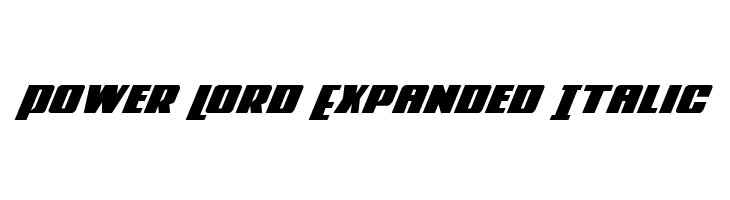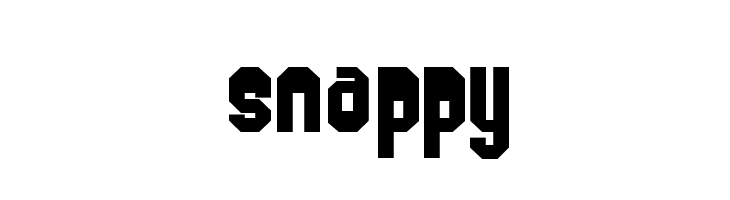
A playful, hand-drawn font with bold, rounded strokes and a casual vibe.
A classic serif font with bold strokes and elegant serifs.
A lively and dynamic script font with fluid, cursive strokes.
A bold, ornate blackletter font with a medieval, gothic style.
An elegant, decorative script font with outlined, swirling characters.
A dynamic, cursive script font with elegant, flowing strokes.
A bold, outlined font with a retro, three-dimensional look.
An elegant script font with fluid, connected strokes and a handwritten feel.
A flowing, cursive script with elegant, handwritten characteristics.
A geometric, minimalist font with thin lines and angular shapes, ideal for modern designs.
A flowing, elegant script font with interconnected letterforms and decorative flourishes.
Festive, bold display font with Santa-themed decorations.
A bold, angular, and futuristic font with an italic slant, perfect for modern and edgy designs.
A bold, elegant script font with fluid, cursive strokes.
A bold, expressive brush script font with dynamic strokes and a hand-painted look.
An elegant and flowing script font with graceful curves and fluid strokes.
A bold, angular font with a futuristic and geometric design.
A bold, rounded font with a modern and impactful style.
A lively, flowing script font with elegant, connected letters and a natural handwriting style.
A dynamic, handwritten font with sharp, angular strokes and fluid connections.
A playful handwritten font with a casual and friendly style.
A bold, dynamic handwritten font with energetic brush strokes.
A modern, tall, and narrow font with uniform stroke width and geometric design.
A bold, geometric font with hexagonal enclosures, offering a modern and futuristic look.
A modern engraved font with a diagonal line pattern and cursive lowercase letters.
A bold, geometric font with angular shapes and a futuristic look.
A modern, playful outline font with rounded, consistent strokes.
A bold, expressive handwritten font with fluid, dynamic strokes.
A bold, geometric font with a distinctive inline design.
A chaotic, splatter-like decorative font with irregular, dynamic forms.
A playful, casual handwritten font with rounded, smooth letterforms.
An elegant script font with flowing, interconnected letters and a classic calligraphic style.
An elegant script font with flowing, interconnected letters and calligraphic style.
An elegant script font with flowing, connected characters and ornate flourishes.
A playful, whimsical font with hand-drawn qualities and varying stroke thickness.